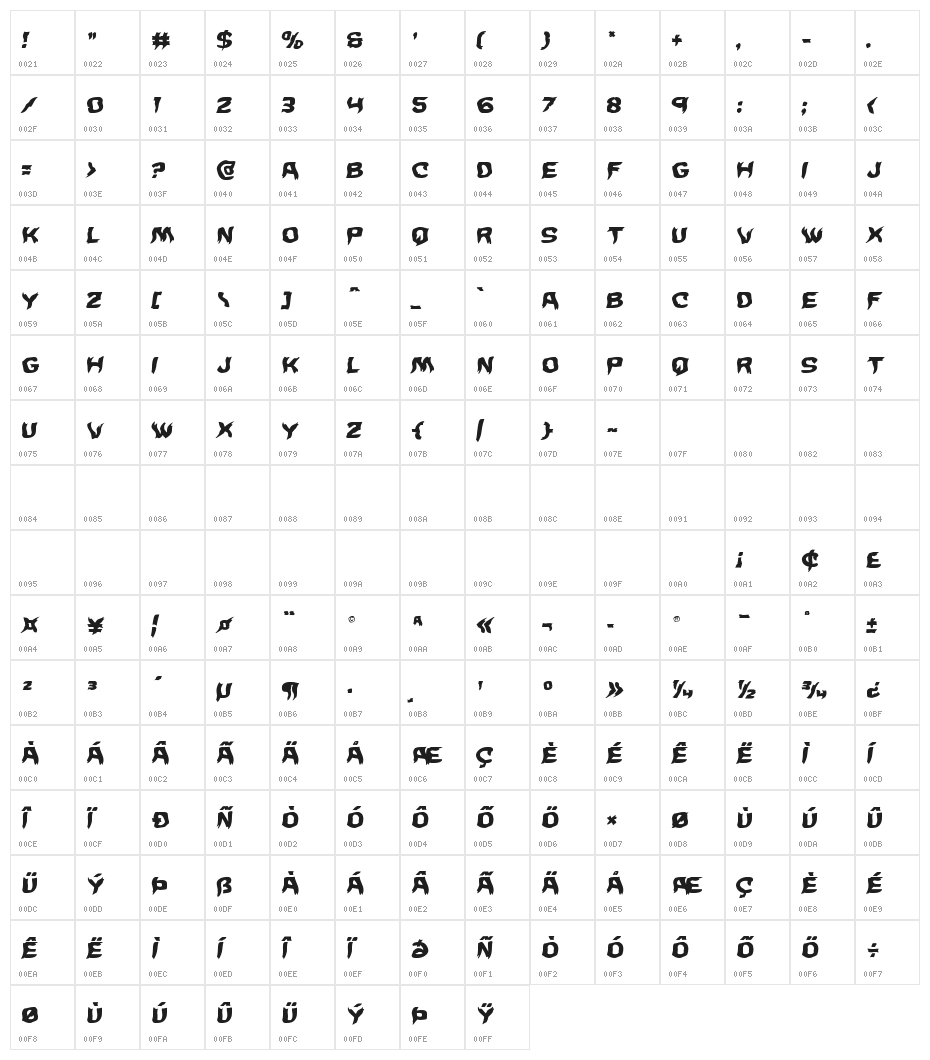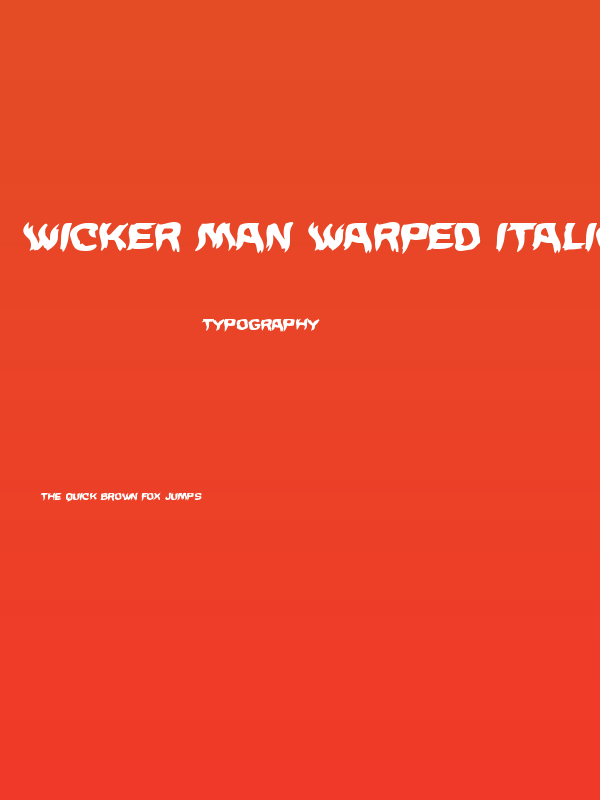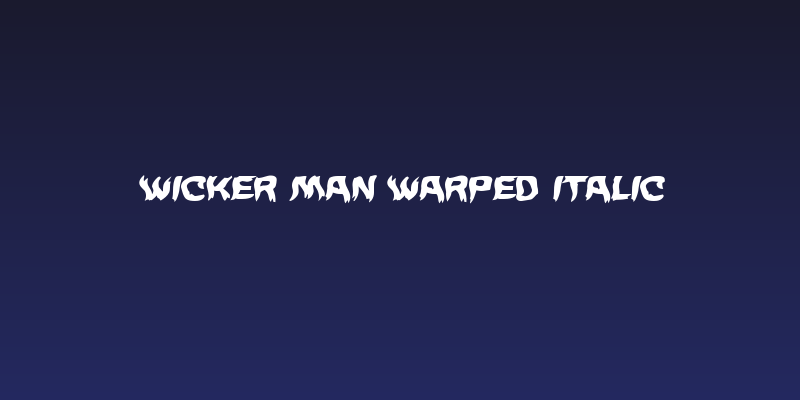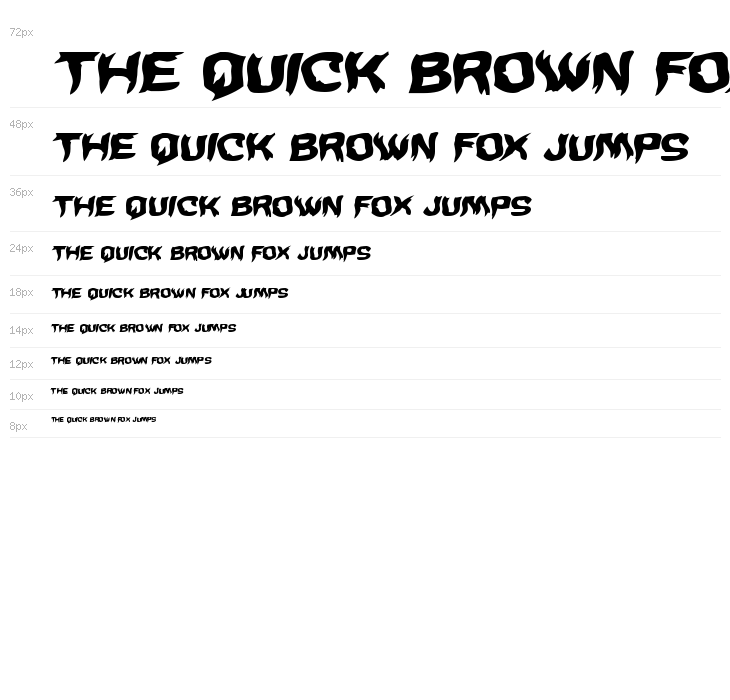
Wicker Man Warped Italic Font
Wicker Man Warped Italic Description
This font features a bold and dynamic style with a warped, italicized appearance. Each character is uniquely distorted, giving it a rugged and edgy look. The strokes are thick and uneven, creating a sense of movement and energy. The uppercase and lowercase letters maintain a consistent style, with sharp angles and irregular edges. The numbers and special characters follow the same design principles, ensuring a cohesive appearance across all elements. This font is ideal for projects that require a dramatic and impactful visual presence.
| Proposed Projects | Perfect for horror-themed posters, edgy branding, album covers, and Halloween event promotions. |